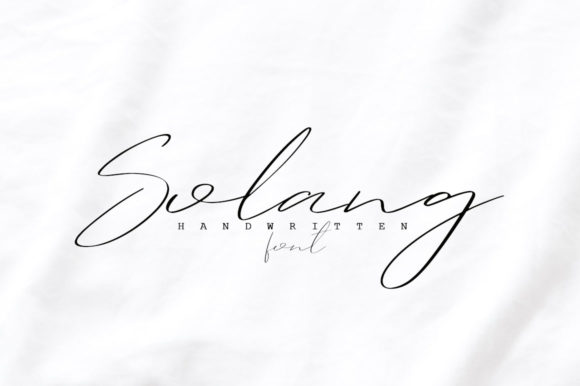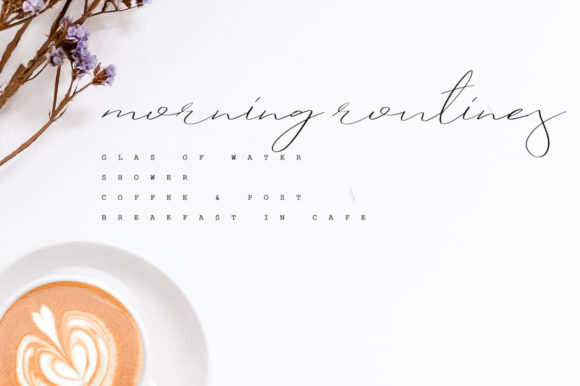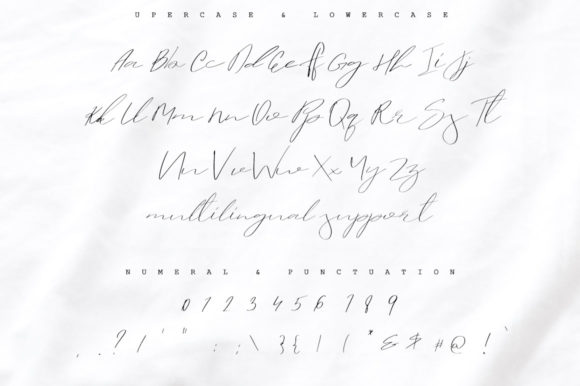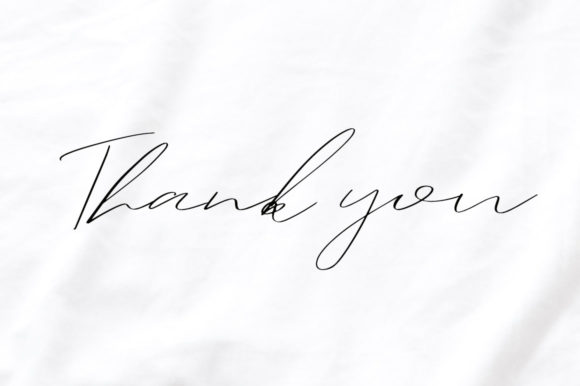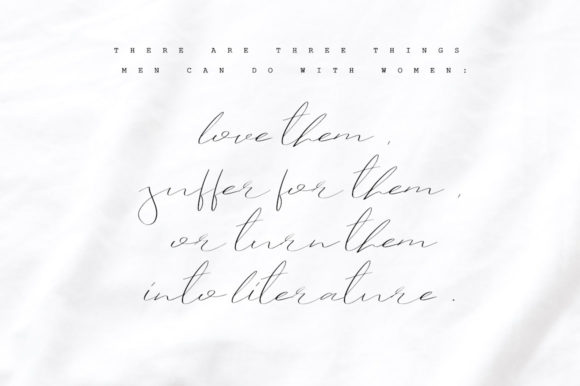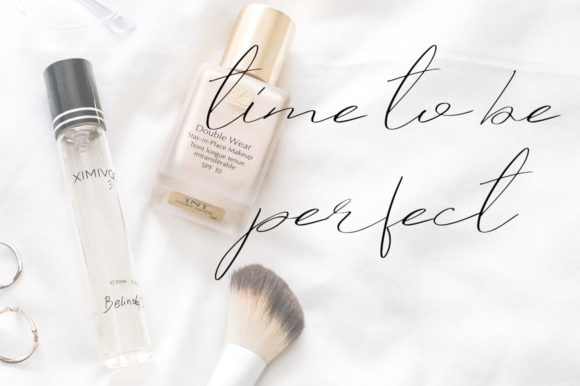
About Solang Font
The Solang is a casual handwritten font. It has a modern style which can be used for logos, photography, watermarks, quotes, blog headers, posters, wedding, branding, logos, fashion, apparel, letters, invitations, stationery, and much more!